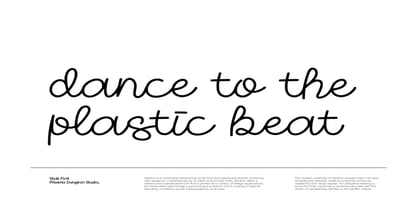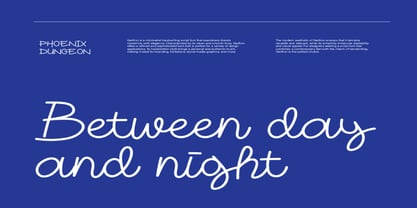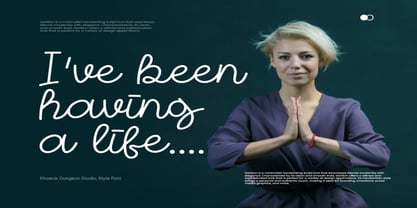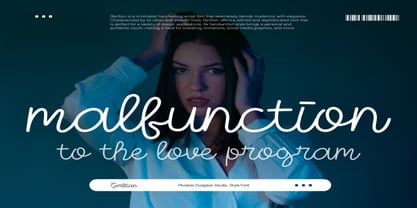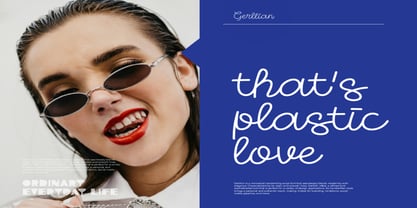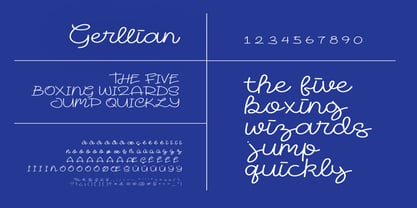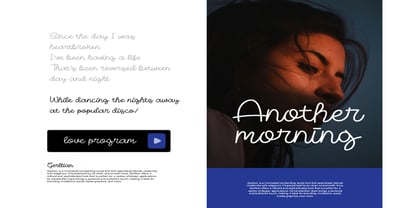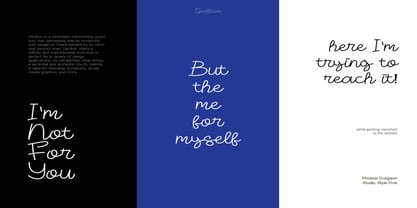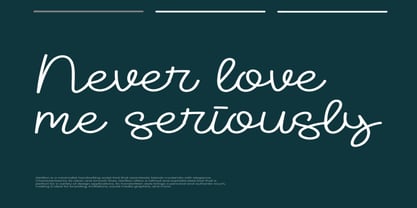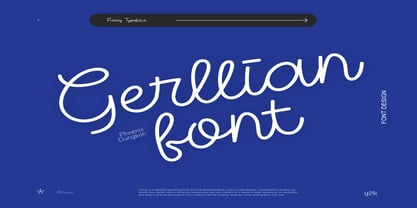
Gerllian
by Phoenix Group
The Gerllian Font Family was designed by Alif Naufal Muzakki and published by Phoenix Group. Gerllian contains 1 styles. More about this family
Gerllion is a minimalist handwriting script font that seamlessly blends modernity with elegance. Characterized by its clean and smooth lines, Gerllion offers a refined and sophisticated look that is perfect for a variety of design applications. Its handwritten style brings a personal and authentic touch, making it ideal for branding, invitations, social media graphics, and more. The modern aesthetic of Gerllion ensures that it remains versatile and relevant, while its simplicity enhances readability and visual appeal. For designers seeking a script font that combines a contemporary feel with the charm of handwriting, Gerllion is the perfect choice.